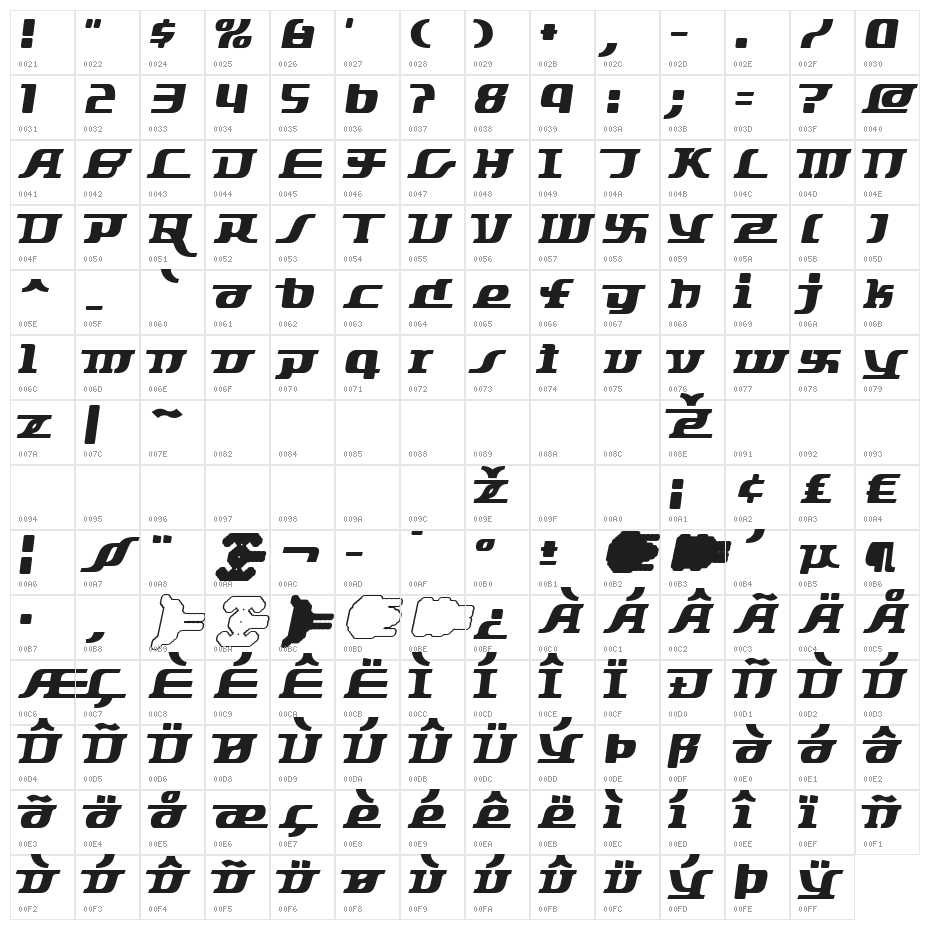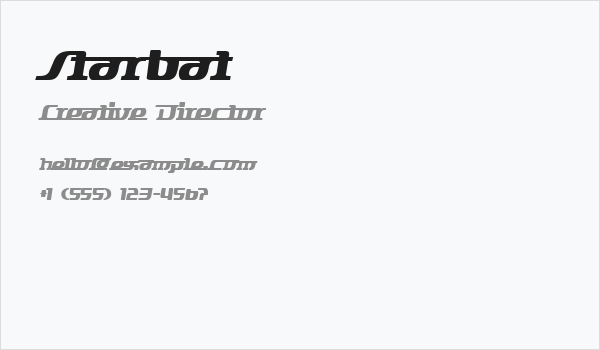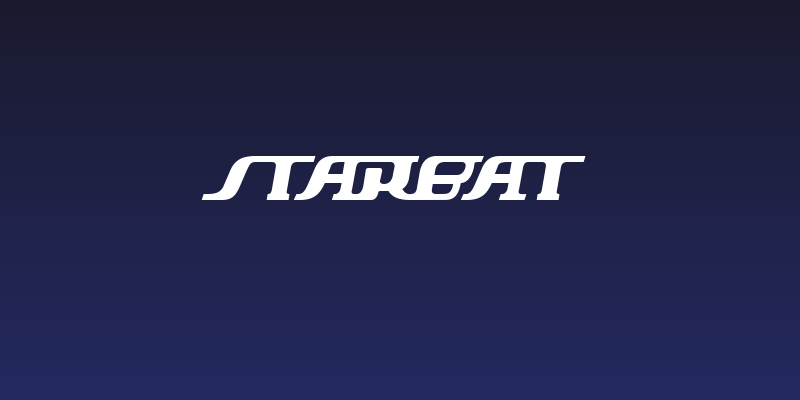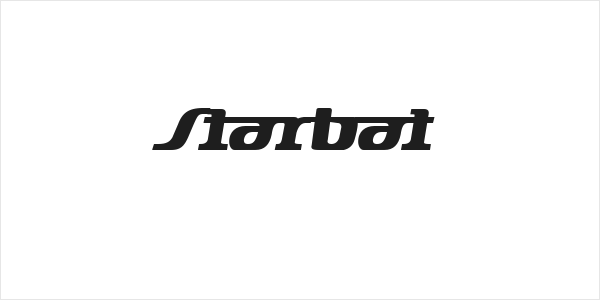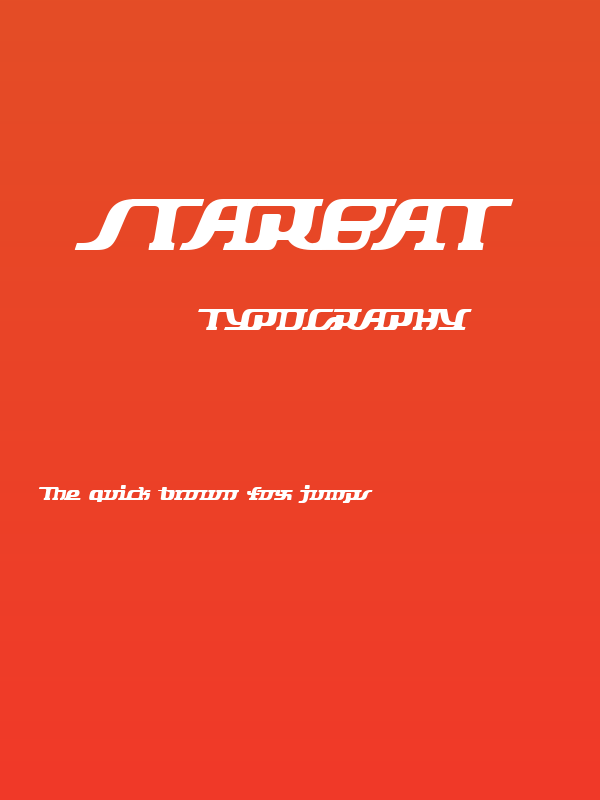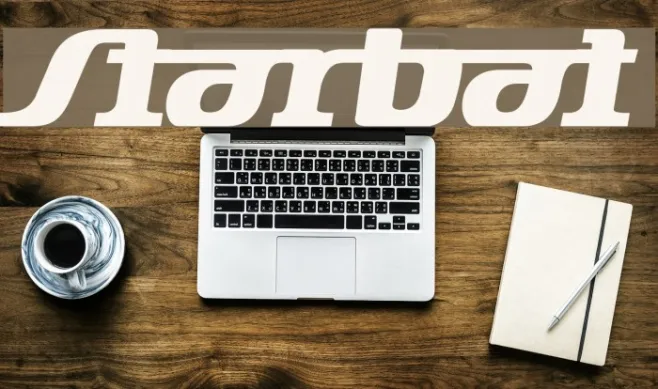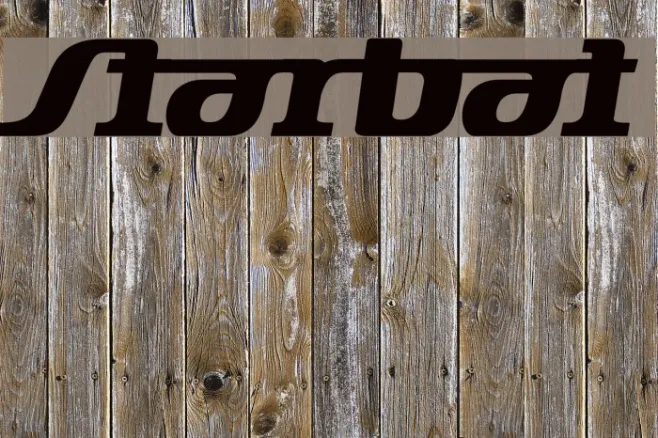
Starbat Font
Starbat Description
This font features a bold and dynamic design with a futuristic flair. The characters are slightly italicized, giving a sense of motion and speed. The strokes are thick and consistent, providing a strong visual impact. The uppercase and lowercase letters maintain a uniform style, with rounded edges and a sleek appearance. Numbers and special characters are designed to match the overall aesthetic, ensuring a cohesive look across all text. This font is ideal for projects that require a modern and energetic feel.
| Proposed Projects | Ideal for sci-fi themed designs, video game titles, tech branding, and modern advertising. |